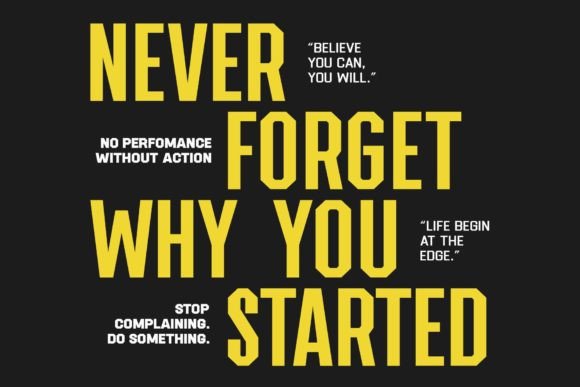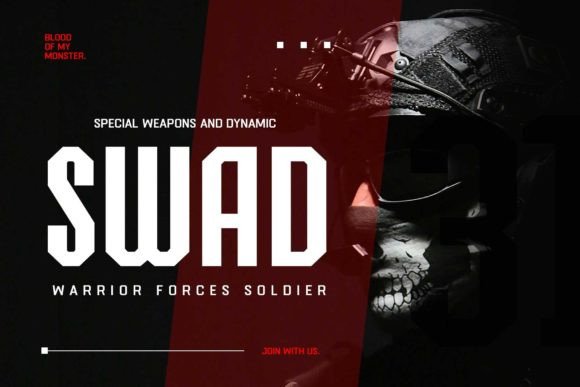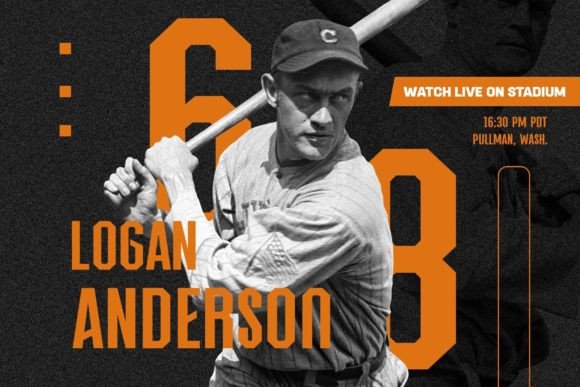
Brionsen Font
Brionsen is a strong block font that comes in three styles: regular, bold, and condensed. It is carefully crafted for headings and displays, featuring sharp edges that represent strength and courage. You can combine these three fonts effectively: use the regular style for short body text, bold for sub-headlines or taglines, and condensed for headlines.Brionsen is suitable for sports themes, military designs, futuristic projects, or any design that needs an energetic touch. It is equipped with stylistic alternatives and multilingual support